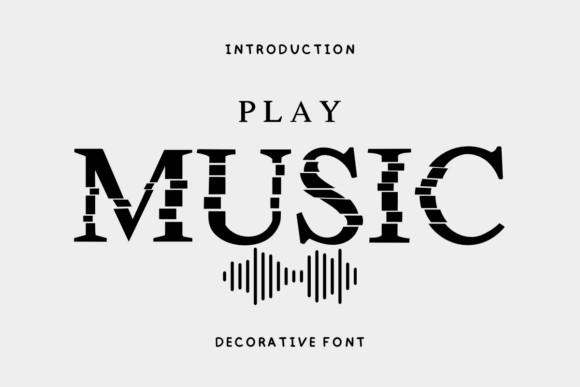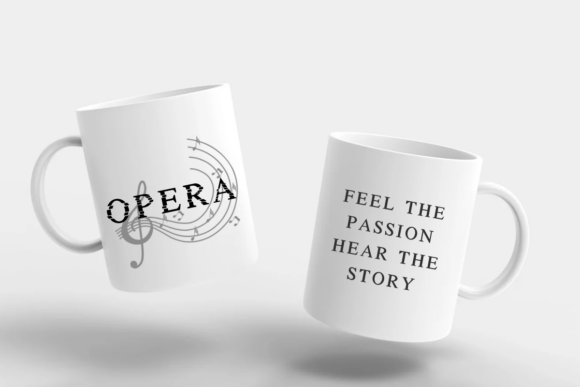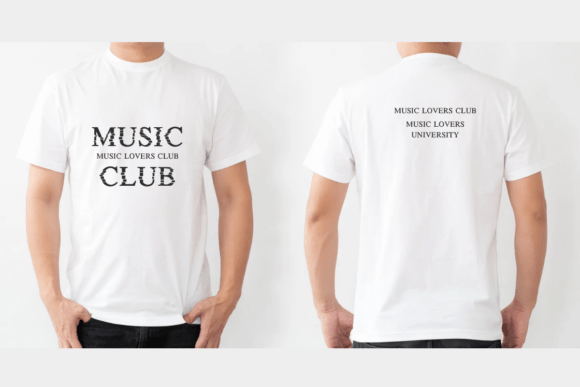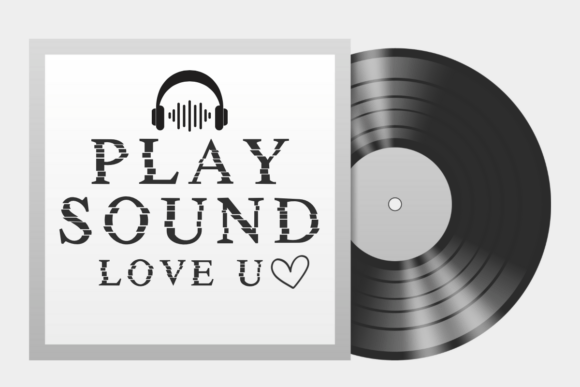
Play Music Font: A Unique Decorative Display Font for Creative Designs
About the Play Music Font
Step up your design game with Play Music Font, a font that exudes confidence and style. Play Music is a decorative font. You can use it for taking notes, writing a diary, or making greeting cards. However, you can still use it for other designs, such as banners, content, mugs, cards, shirts, stationery, social media posts, and more!
Play Music’s decorative style makes it ideal for headlines, short text blocks on posters or packaging, and branding elements requiring a touch of playful whimsy. It excels in applications where visual impact is prioritized over readability for large amounts of text. Avoid using it for body copy, long paragraphs, or user interfaces where legibility is paramount.
Its inherent energy pairs well with clean, geometric sans-serifs like Montserrat or Lato for a balanced contrast. For a more sophisticated feel, consider pairing it with a classic serif like Garamond or a subtly elegant script like Great Vibes, depending on the desired overall tone.
Play Music’s personality is best described as cheerful and slightly quirky, making it a strong choice for brands targeting a younger demographic or projects with a lighthearted, informal feel.